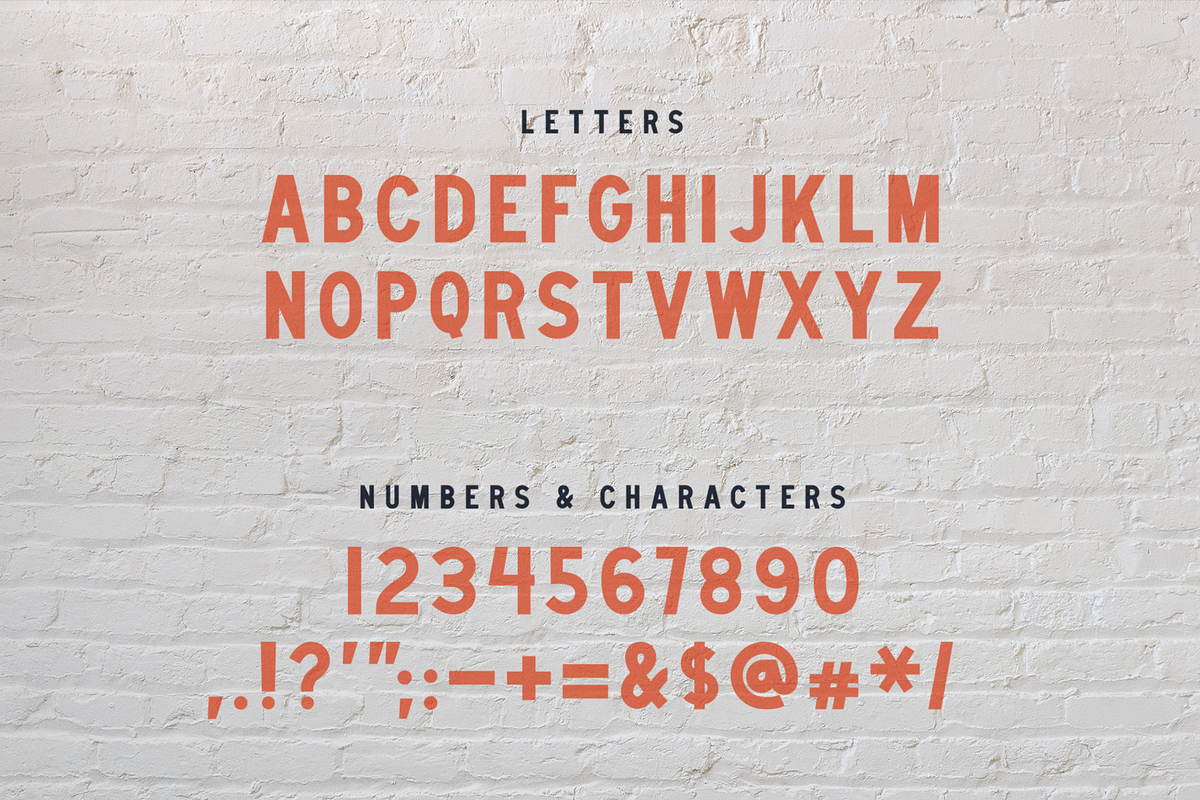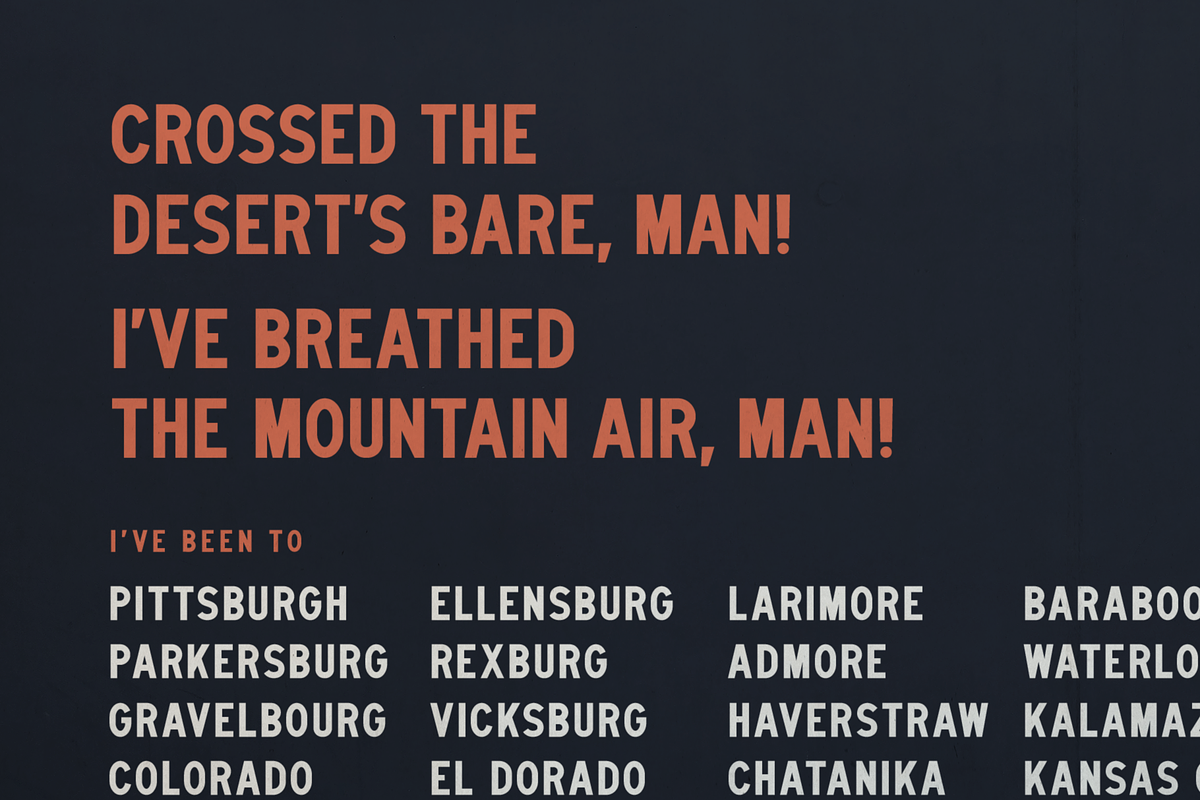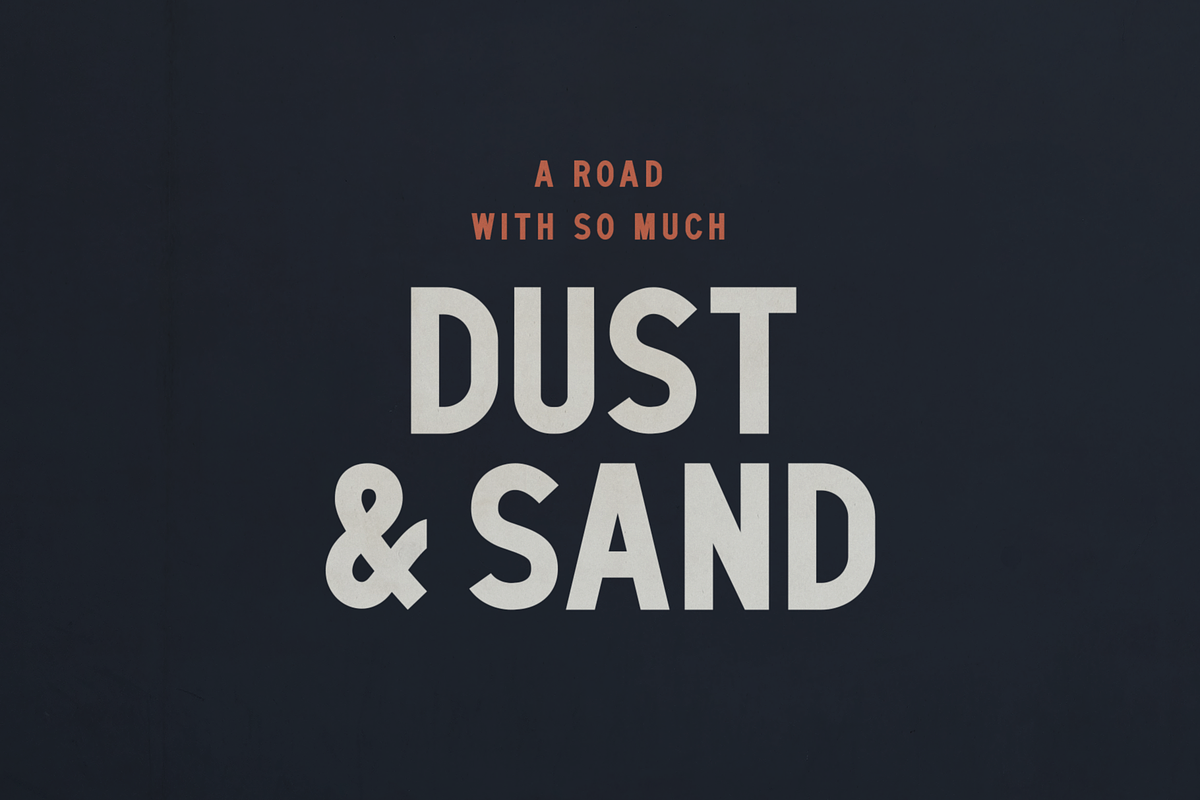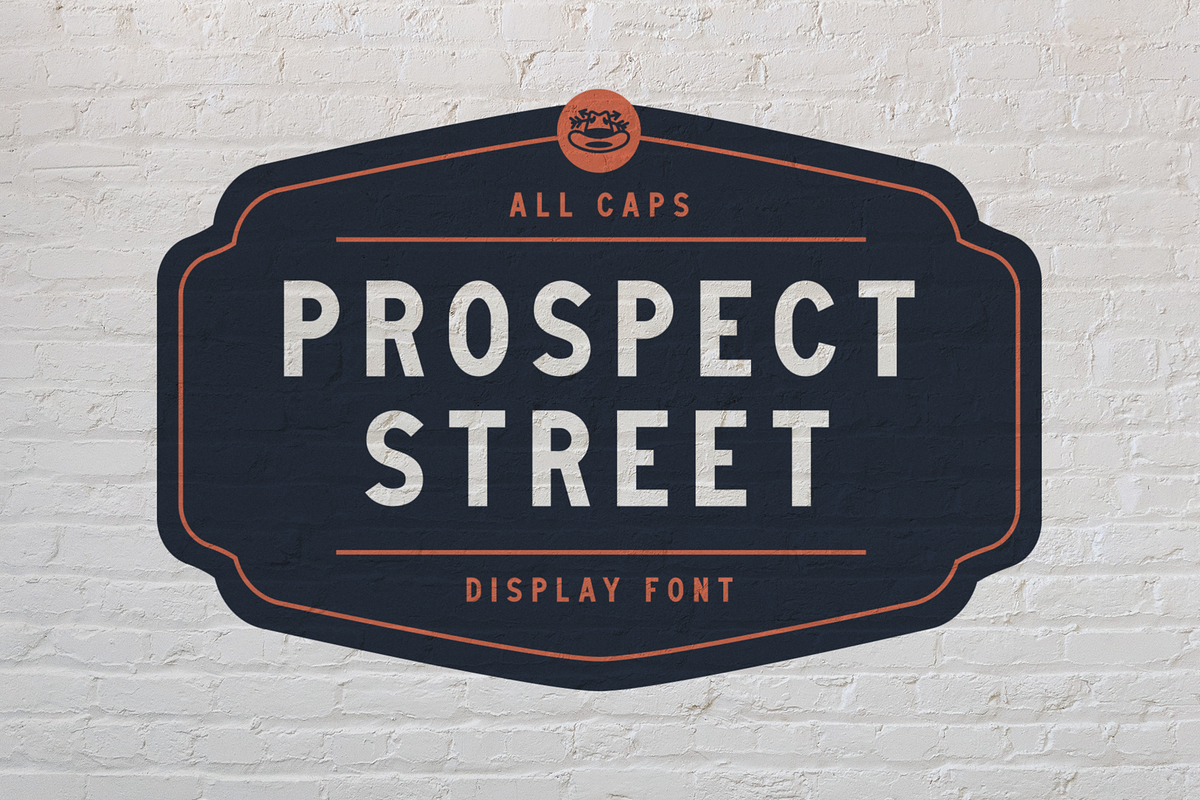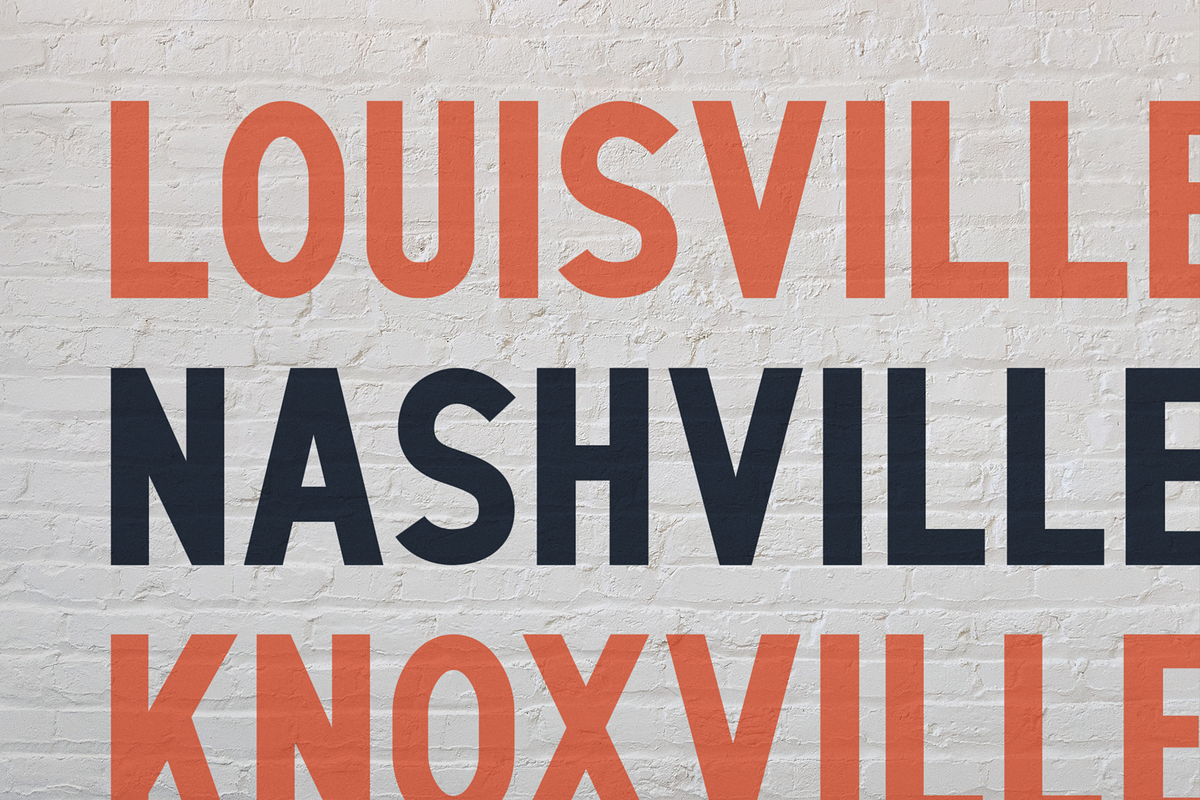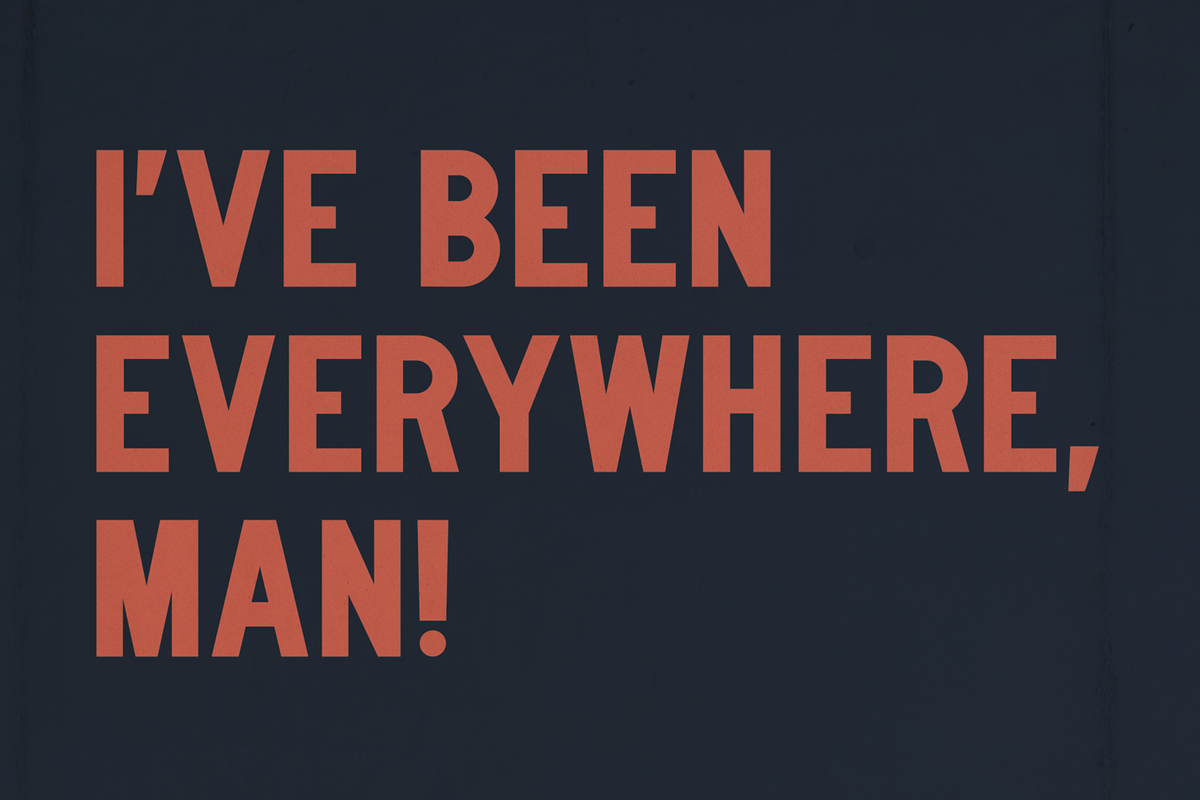
Prospect Street - Sans Serif Display
Prospect Street is a straightforward, all-caps display font, drawing its design cues from pre-1950s highway lettering manuals. With a few modern revisions and additions, this versatile sans-serif font, imbued with a subtly handcrafted feel, is an ideal choice for impactful headlines, distinctive branding and logos, or any project requiring a touch of sans-serif charm.